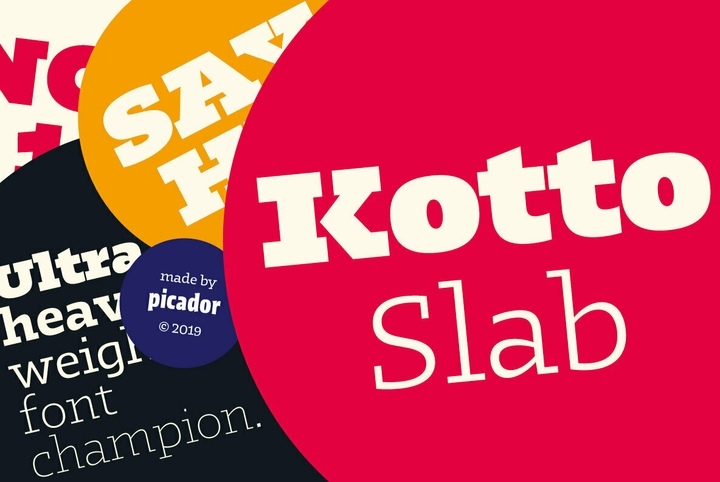
Kotto Slab Font
Kotto Slab Font is perfect for editorial magazine layouts, corporate annual reports, architectural firm branding, industrial product catalogs, construction company logos, real estate marketing materials, engineering documentation, and contemporary book publishing. This robust typeface excels in applications where strength and reliability need to be communicated through sophisticated typographic solutions.
What makes Kotto Slab Font truly exciting is its perfect balance of industrial strength and refined elegance. The font features bold, confident slab serifs that convey stability and trustworthiness, while maintaining clean, modern proportions that ensure excellent readability across all sizes. Its carefully engineered letterforms demonstrate exceptional attention to detail, with consistent weight distribution and precise geometric construction that creates a harmonious reading experience. The typeface's versatile character allows it to work seamlessly from large display headlines to extended body text applications.
The Kotto Slab Font family includes six weights ranging from Light to Black, each accompanied by matching italic versions. The font offers comprehensive OpenType features including small capitals, old-style figures, tabular numerals, and extensive language support. Additional stylistic alternates and contextual ligatures provide designers with enhanced flexibility for creating distinctive typographic hierarchies and custom lettering solutions.